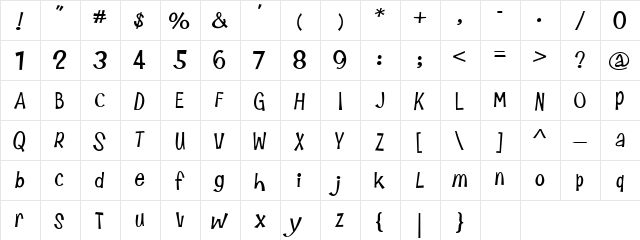
AL HairBrained Regular Font Preview
AL HairBrained Regular
AL HairBrained Regular Font Details
Design Context for AL HairBrained Typeface
AL HairBrained is a composed and adaptable typeface that performs quietly and consistently across a wide range of design contexts.